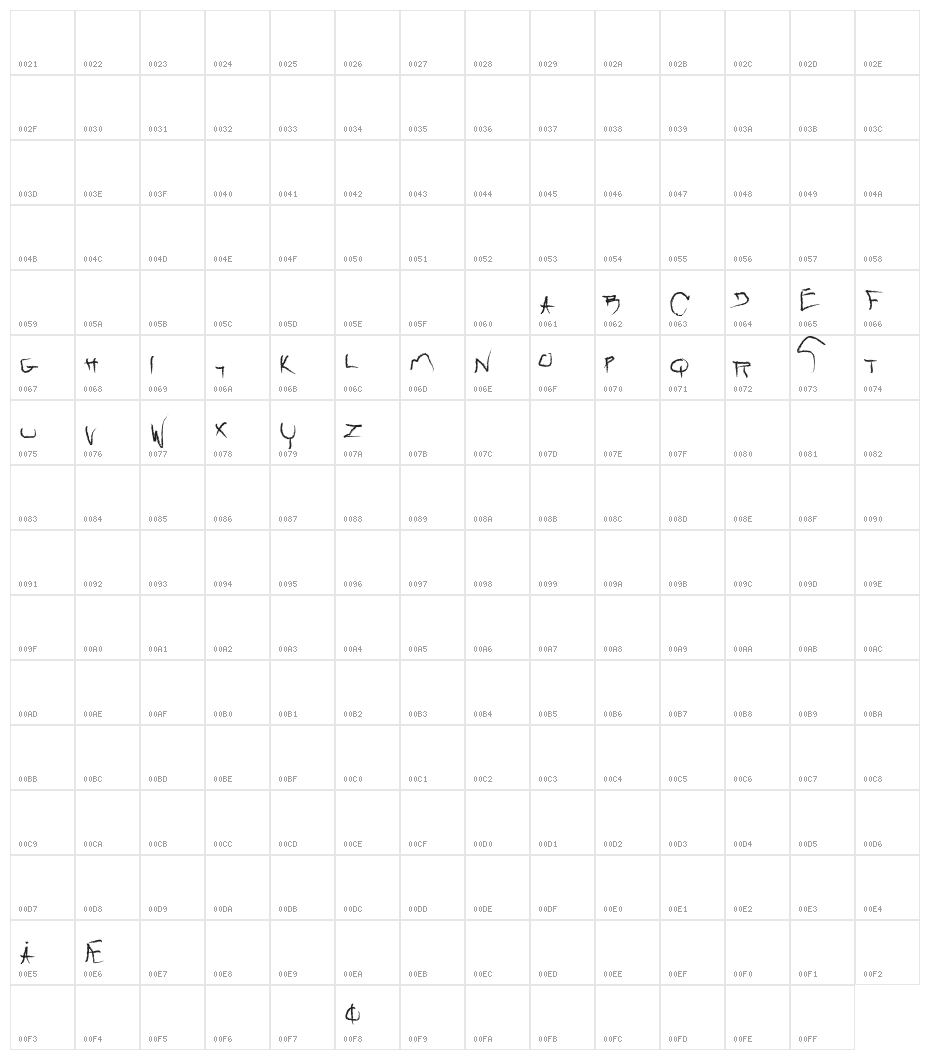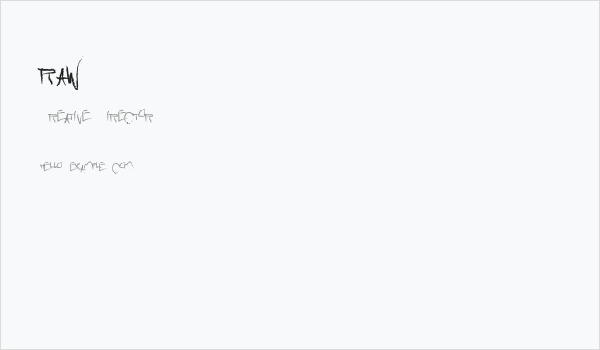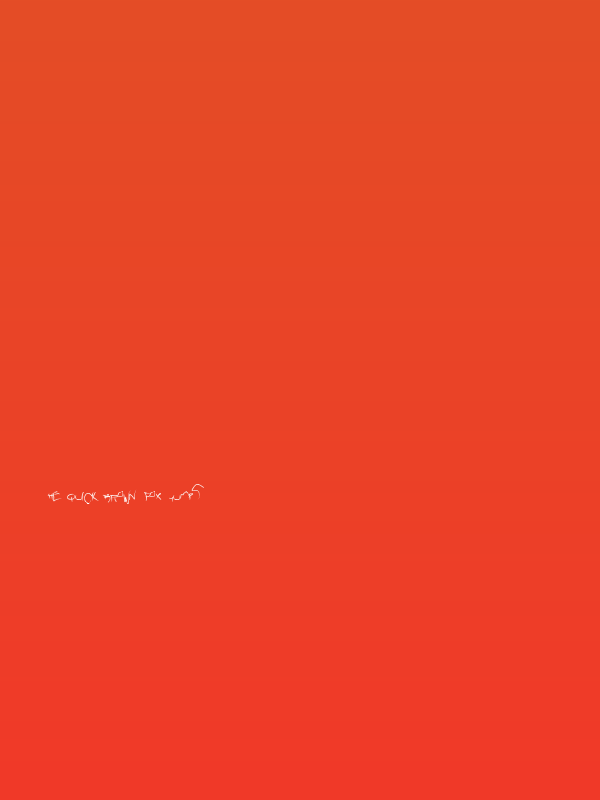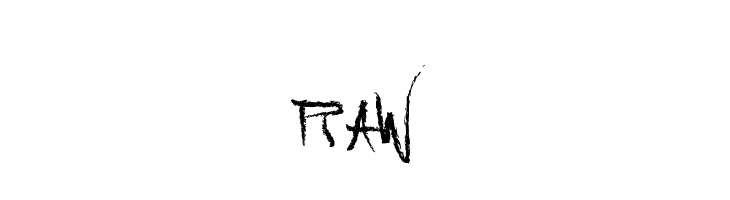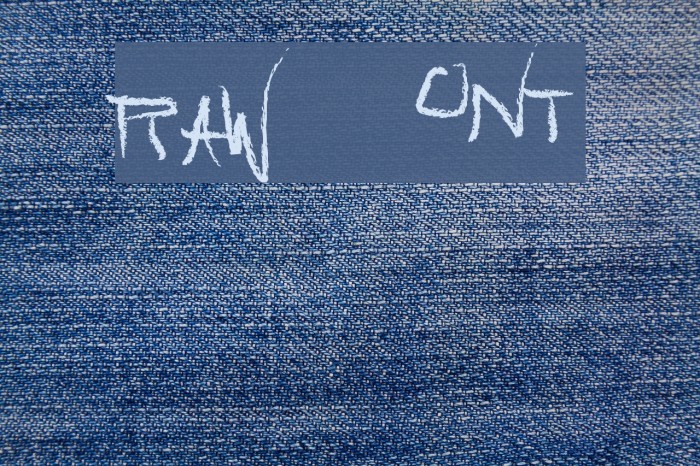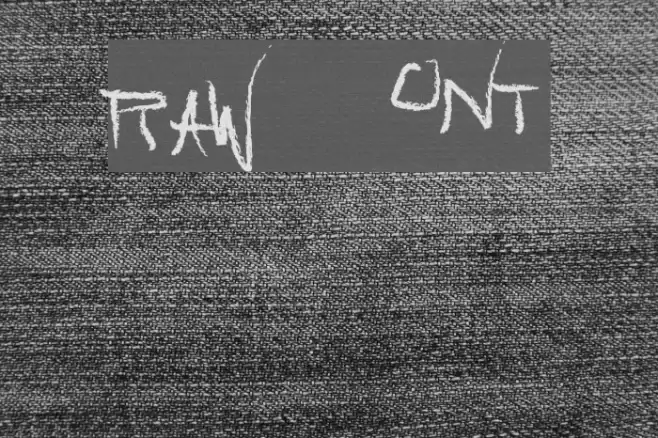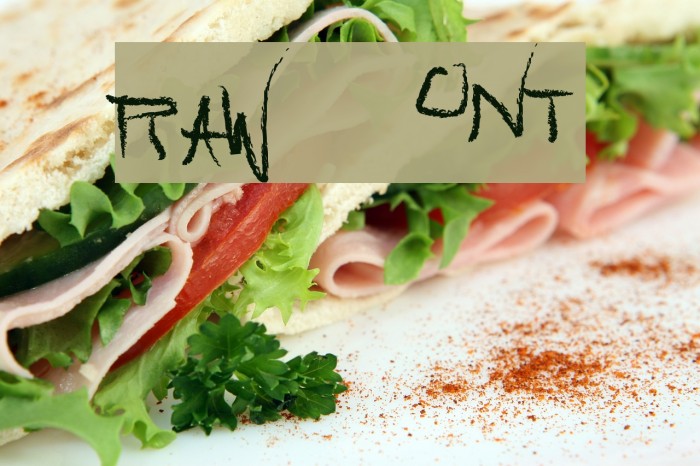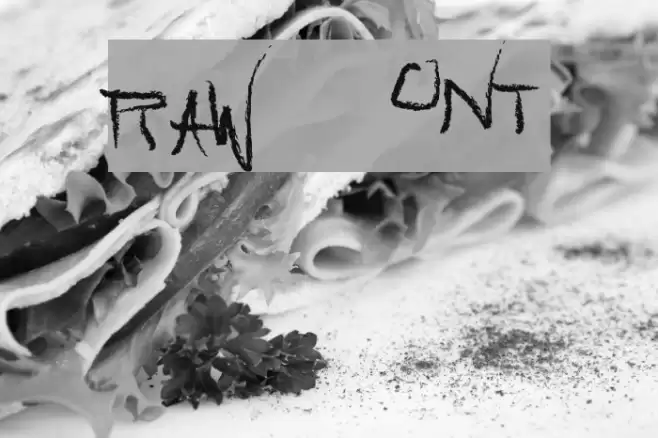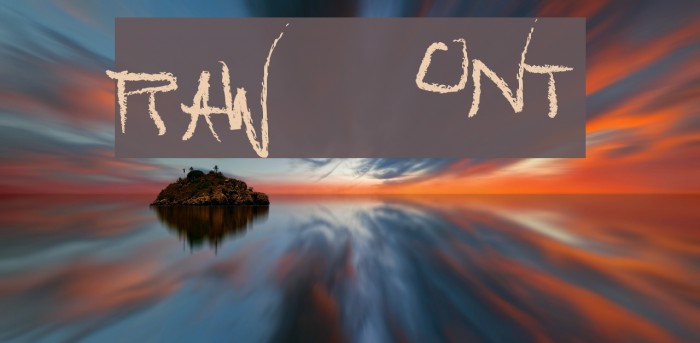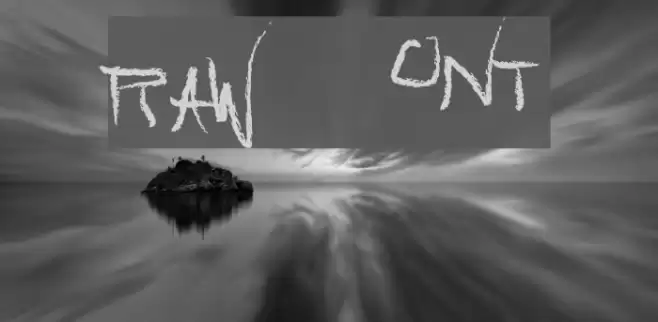
raw Font
raw Description
This font exhibits a highly expressive and artistic style, characterized by its rough, hand-drawn appearance. The strokes are irregular and dynamic, giving each letter a unique, almost chaotic feel. The uppercase letters are bold and prominent, while the lowercase letters maintain the same energetic style. The numbers and special characters follow the same design principles, ensuring consistency across all glyphs. The overall impression is one of spontaneity and creativity, making it ideal for projects that require a personal and unconventional touch.
| Use Case | Logos, Posters, Artistic projects |
| Proposed Projects | Ideal for artistic projects, album covers, posters, and creative branding that require a personal and unconventional touch. |